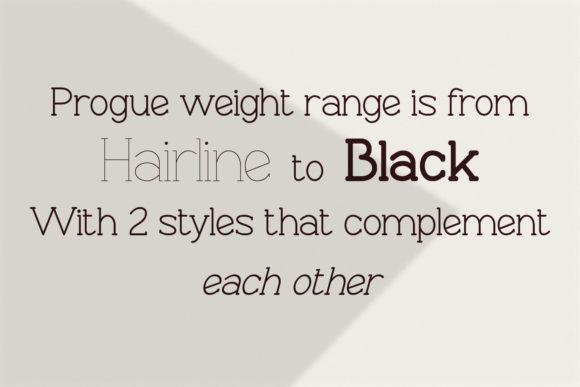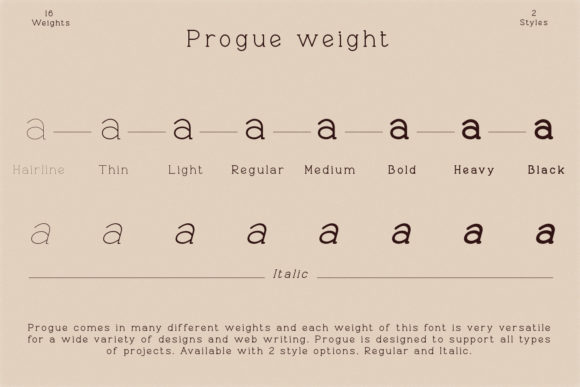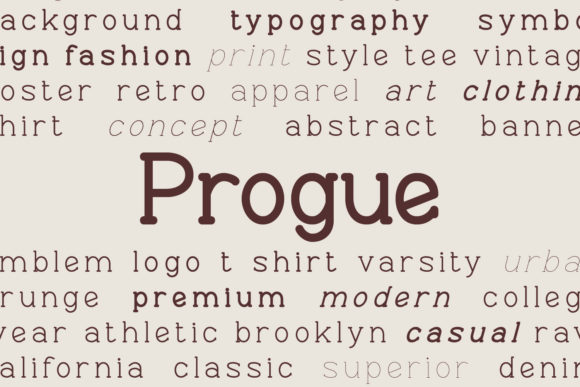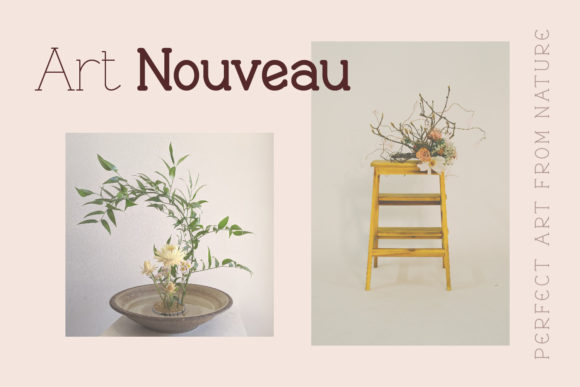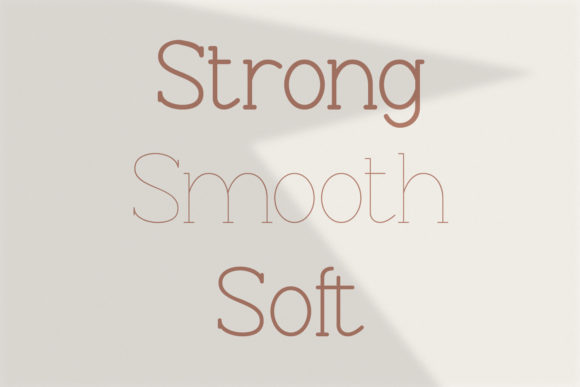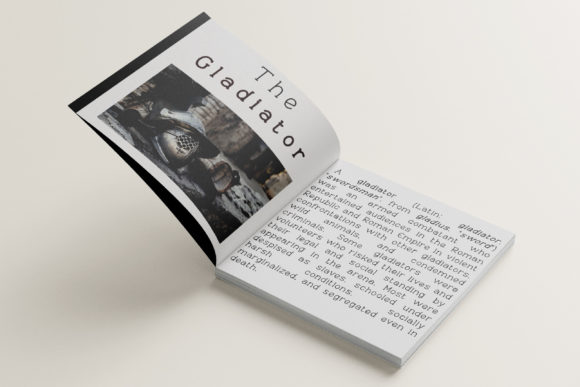
Introduction to Progue Font Font
Fonts play a crucial role in design, and the Progue Font font is a typeface that brings both character and versatility to any project. Whether you’re working on a branding project, a website, or a print design, the Progue Font font offers a unique style that can elevate your work.
Progue is a cool, fun and adaptable slab serif font.
It matches a variety of designs related to crafting, digital designing, presentations or greeting cards making .
Key Features of Progue Font Font
Why Choose Progue Font Font?
The Progue Font font is more than just a typeface – it’s a design tool that helps you communicate your message with style and clarity. Its unique character set and versatile design make it suitable for a wide range of applications, from elegant invitations to bold headlines.
With its carefully crafted letterforms and balanced proportions, the Progue Font font ensures readability and visual appeal across all mediums.
What makes Progue Font font special?
The Progue Font font stands out with its unique design, exceptional readability, and versatility across various design applications.